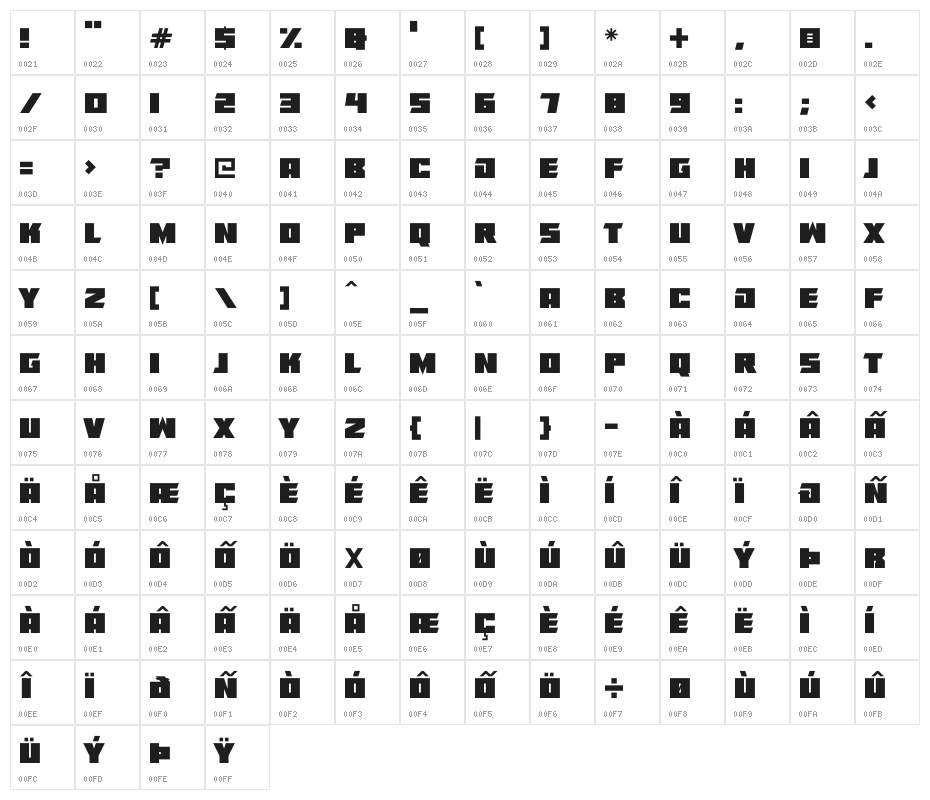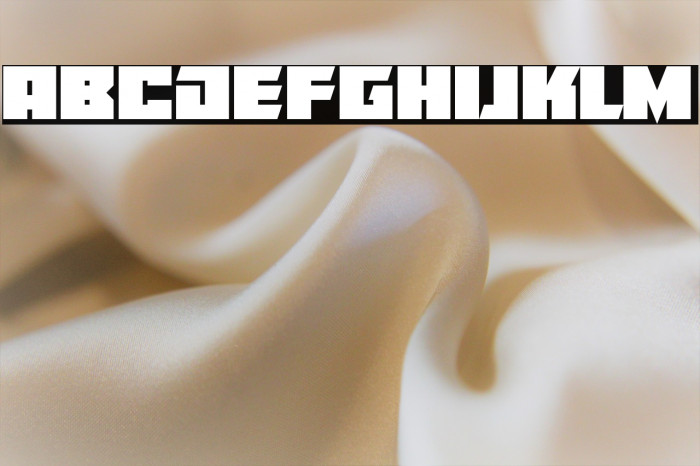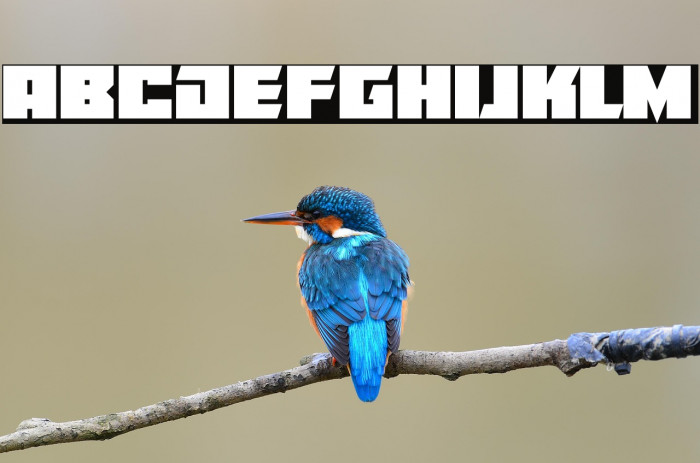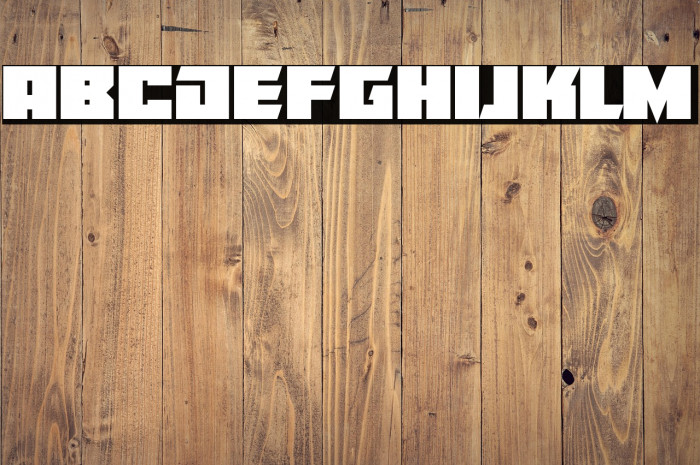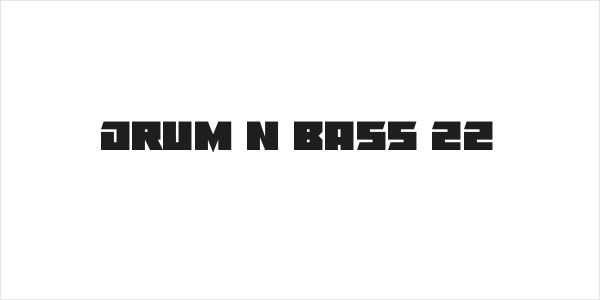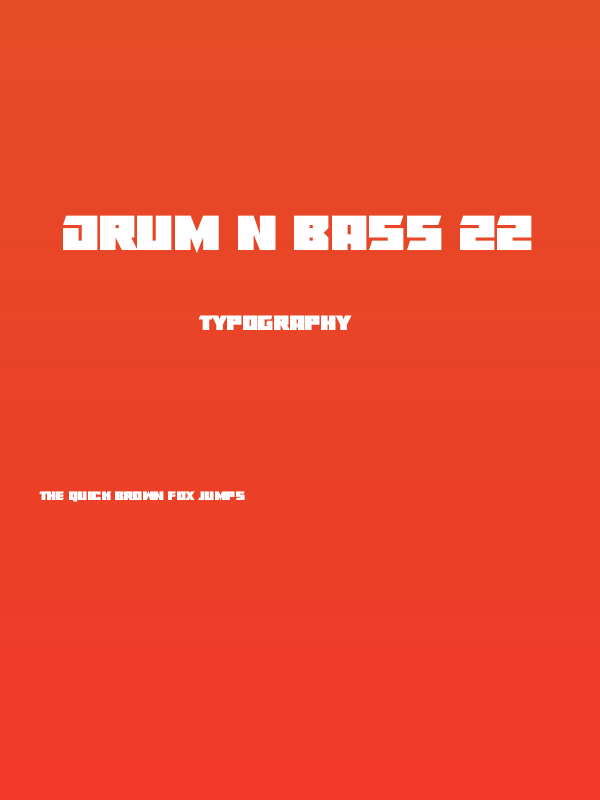
Drum N Bass 22 Font
Drum N Bass 22 Description
This font features a bold and geometric design, characterized by sharp angles and a blocky appearance. The uppercase letters are uniform in height, with a strong presence that commands attention. The lowercase letters maintain the same boldness, ensuring consistency across the typeface. Numbers and special characters are designed to match the overall aesthetic, making them suitable for a variety of uses. The font's style is reminiscent of digital or futuristic themes, with a modern edge that makes it ideal for contemporary designs.
| Proposed Projects | Ideal for use in digital media, video game graphics, posters, and branding that requires a strong, modern look. |